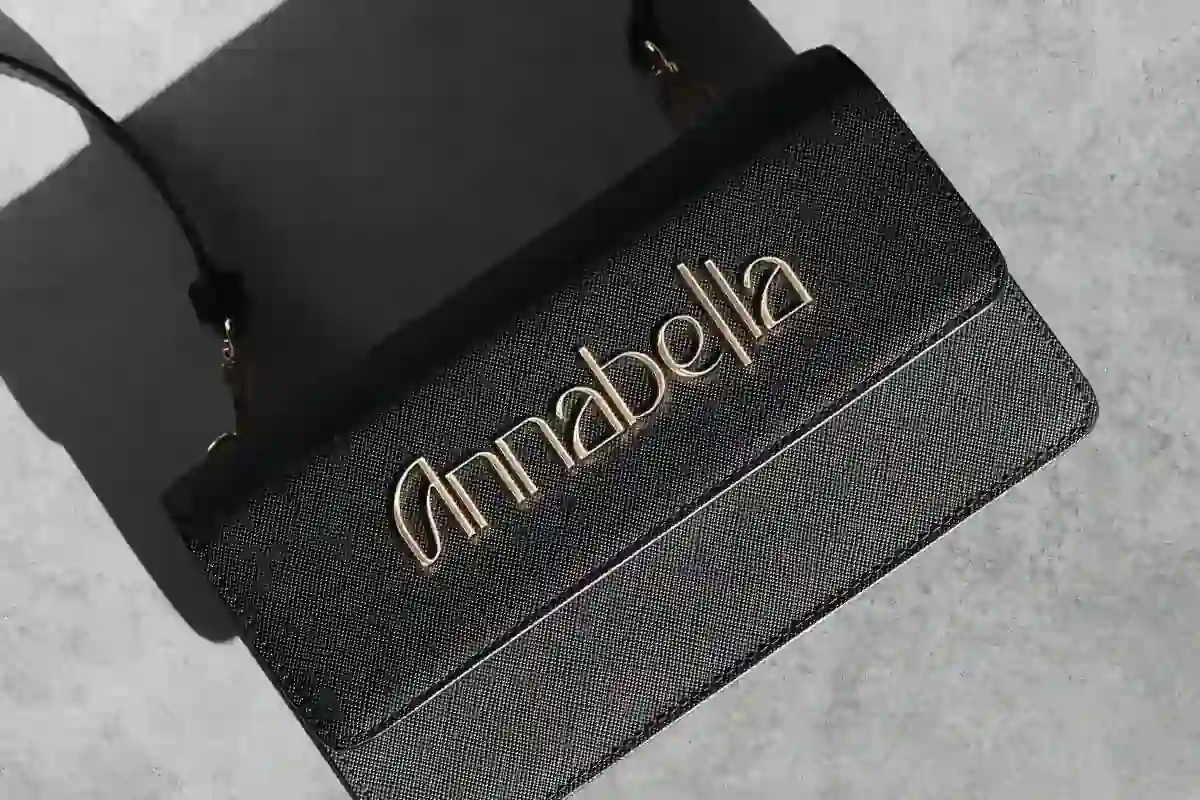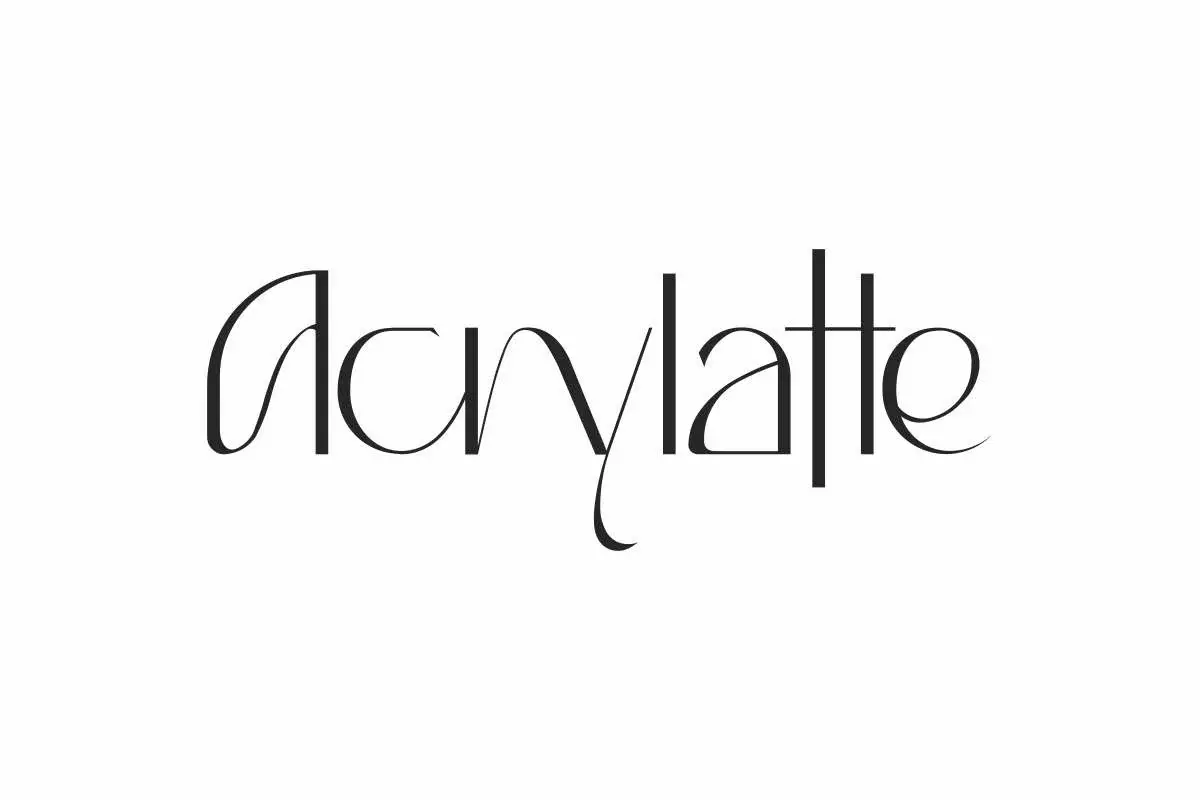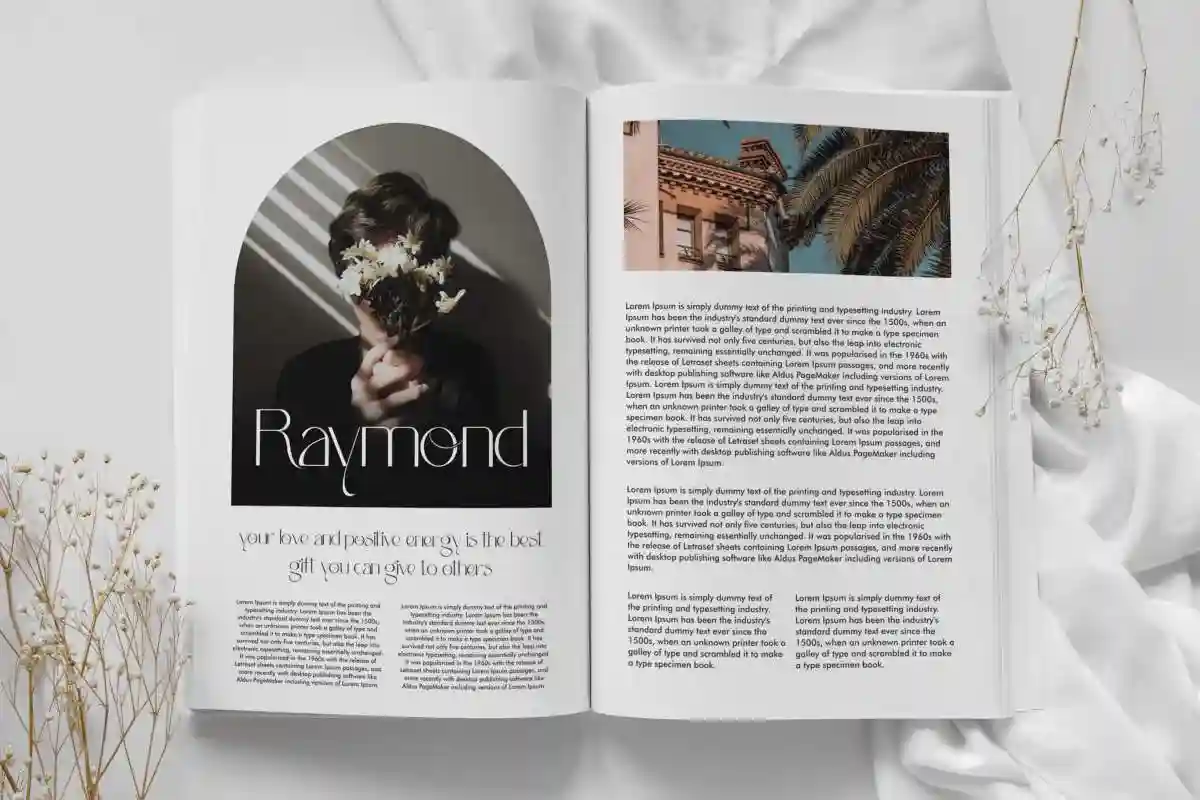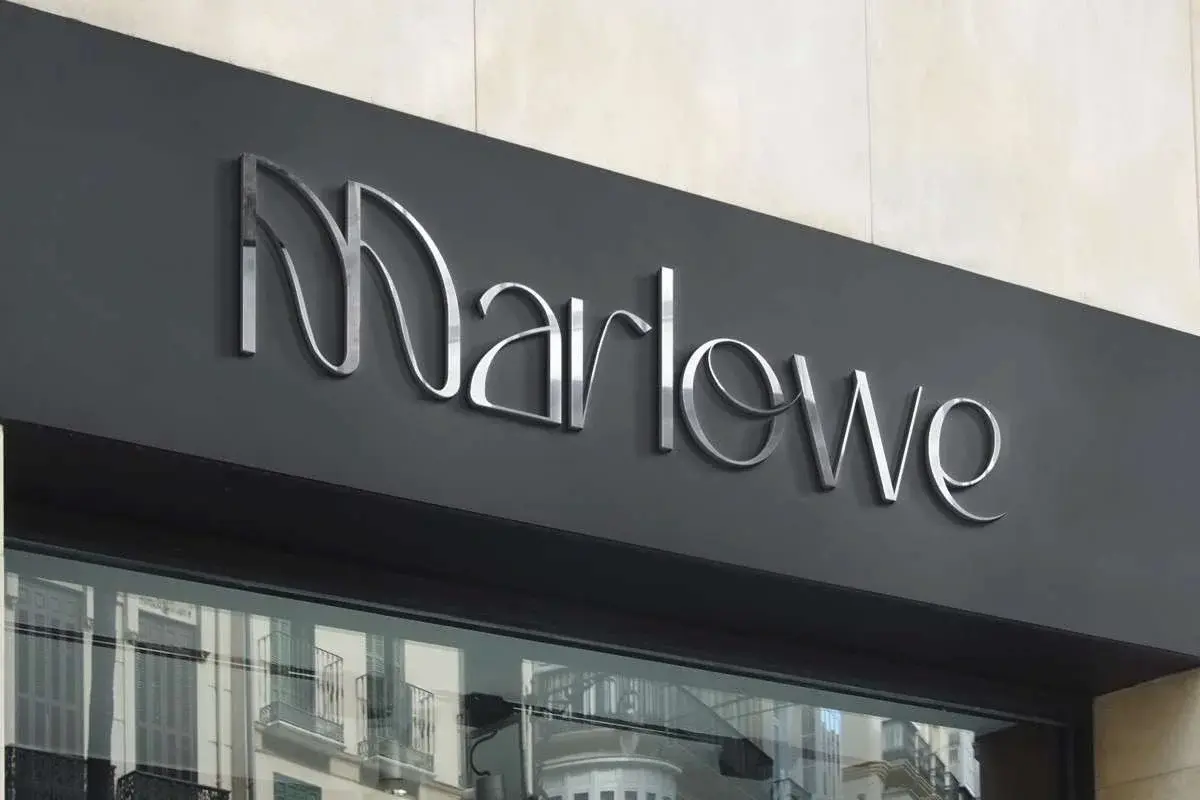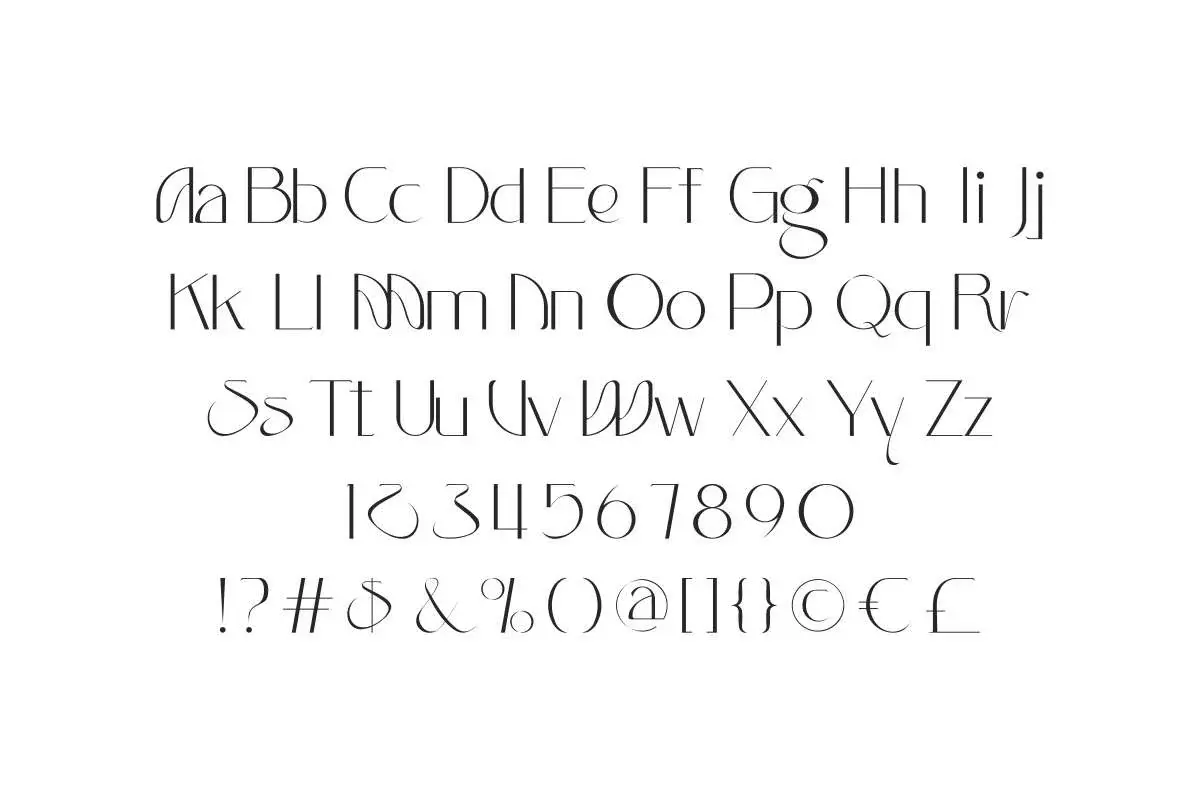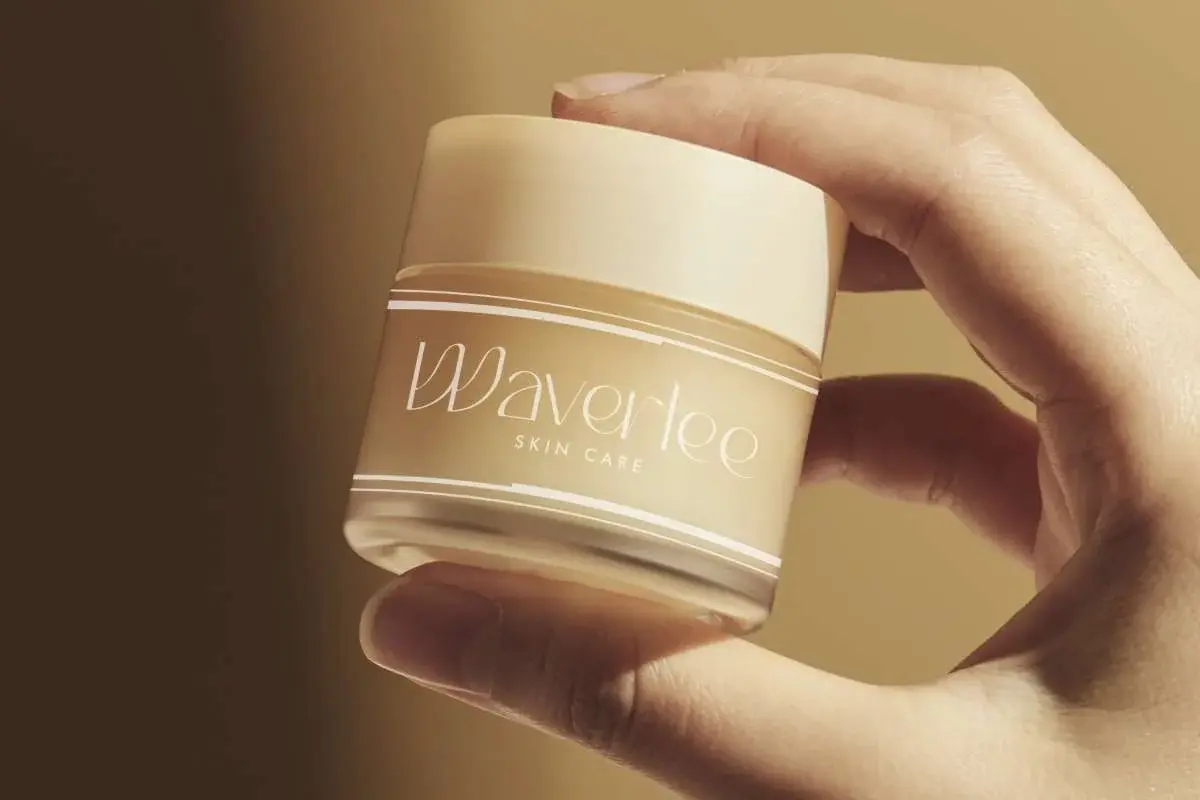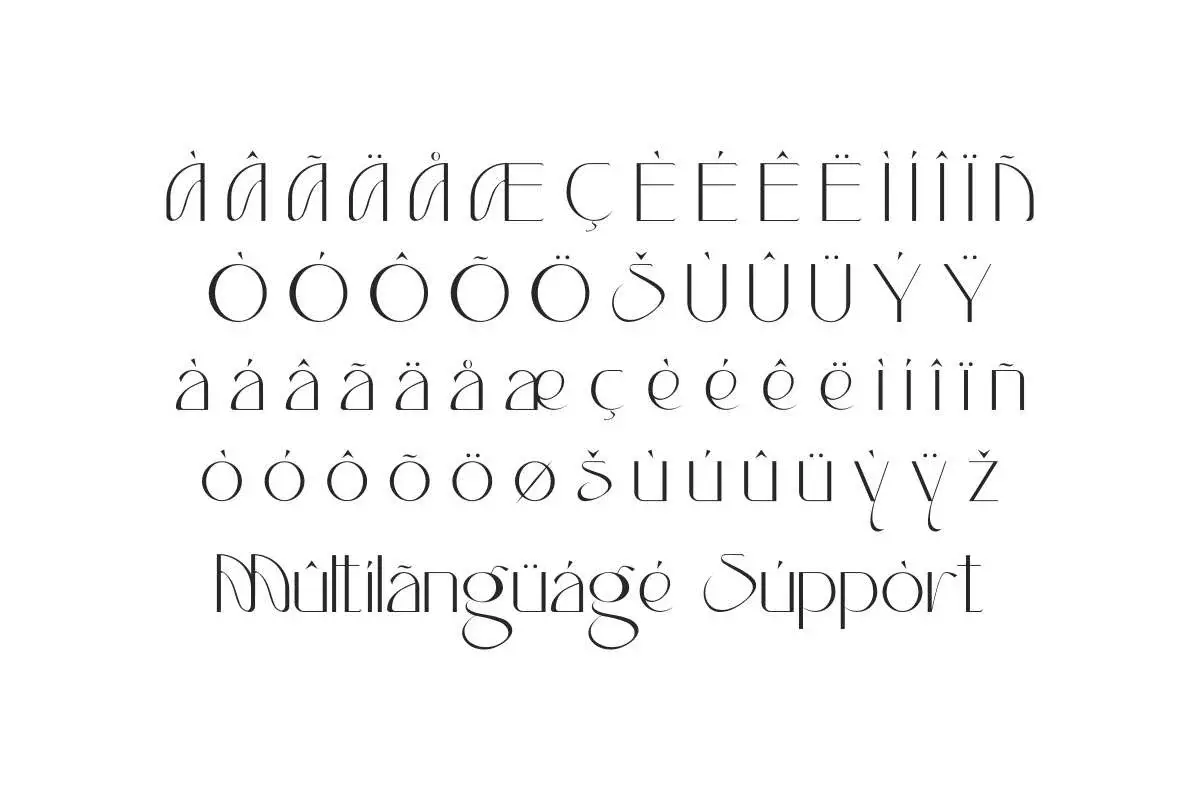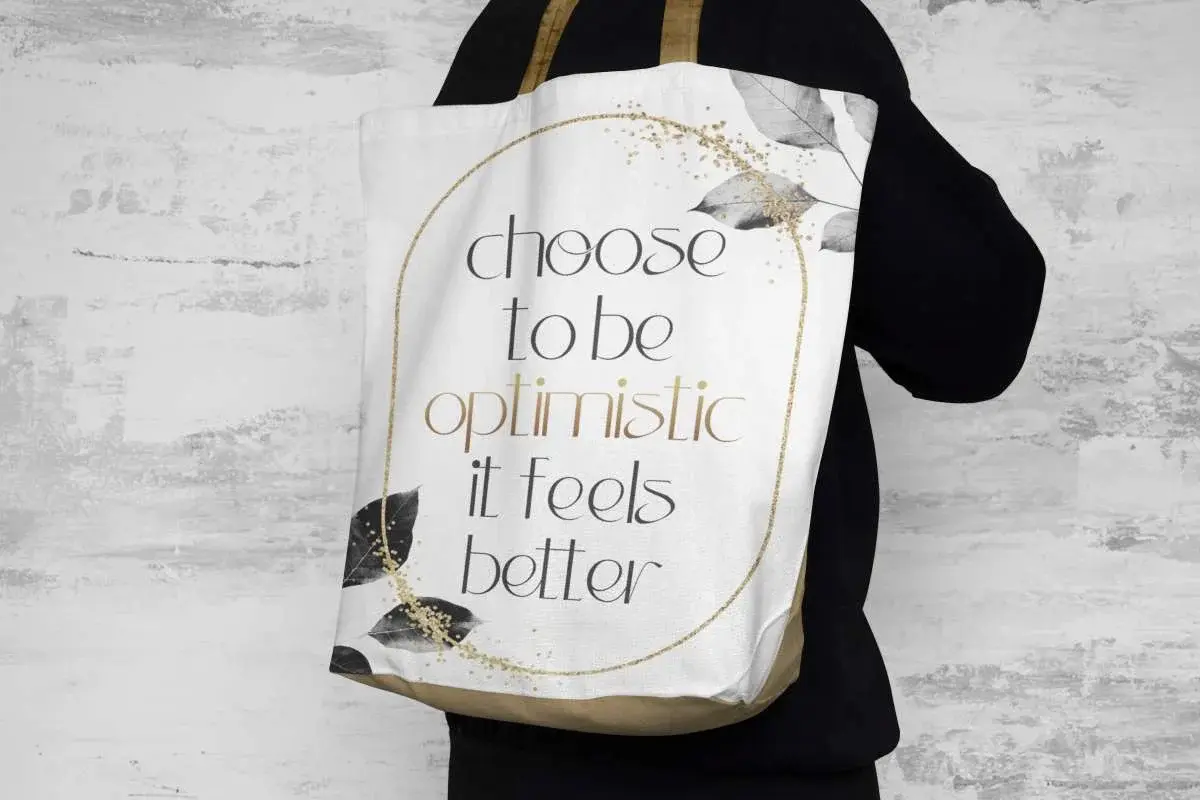
Acrylatte Luxury Font
Acrylatte Font is a fancy typeface that has a unique line in each letter. Use this font for beauty product, fashion, magazine catalog, quote art, signage, etc.
Acrylatte Font is a modern display font with a luxurious style, created by NihStudio. This font has a unique line wave that is supported by a clean look to each character. So it’s still easy to read and suitable for many industries, such as boutique, cosmetic, fashion, restaurant, spa salon, wedding, etc.
Acrylatte Font will make for an awesome design! There are various projects you can create using this font, such as brand logo, magazine catalog, product packaging, quote art, screen printing, signage, stationery, and anything that needs a modern look.
Acrylatte Font comes with full set of Uppercase and Lowercase Basic Characters that are similar but not the same, Number, Punctuation and Symbol, Ligature, and also supports multilingual characters. Ready to use both on Windows machine or Mac with simple installations. It’s tested to work well in the Adobe Apps (Illustrator, Adobe InDesign, Adobe Photoshop) CorelDraw, and others. PUA Encode Characters means you can access all the glyphs and other characters easily – Fully accessible without additional design software.